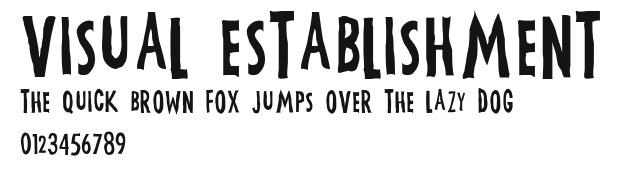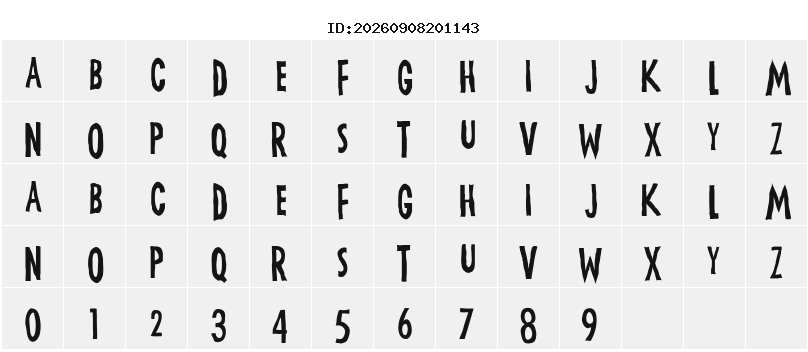
• Font Name: Visual Establishment
• Designer: Alberto Alberti, Luca Zamoc
• Manufacturer: Soolid comunicazione
Visual Establishment.ttf is a modern, elegant sans-serif font designed for ultimate readability and visual harmony. Perfect for branding, headlines, web design, and print materials.